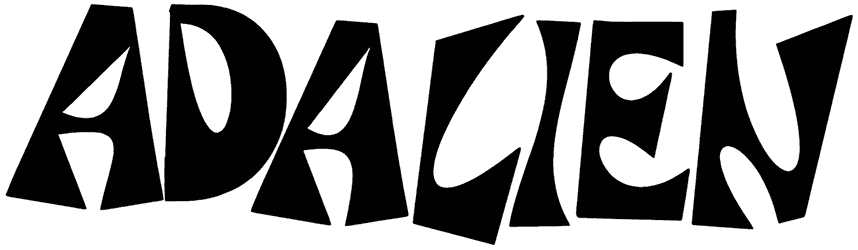
Adalien Font
Do you like artistic designs with modern and unique faces? This poster font is able to bring this kind of mood to your upcoming design and make it captivating. Adalien possesses two weights but doesn’t cover lowercase letters. Set it for headlines, covers, logos, or the like, and show off your creativity.